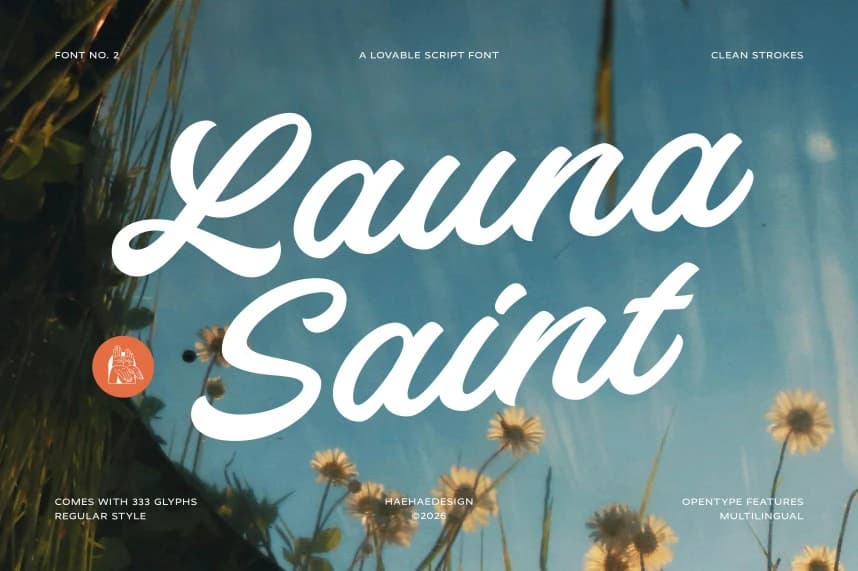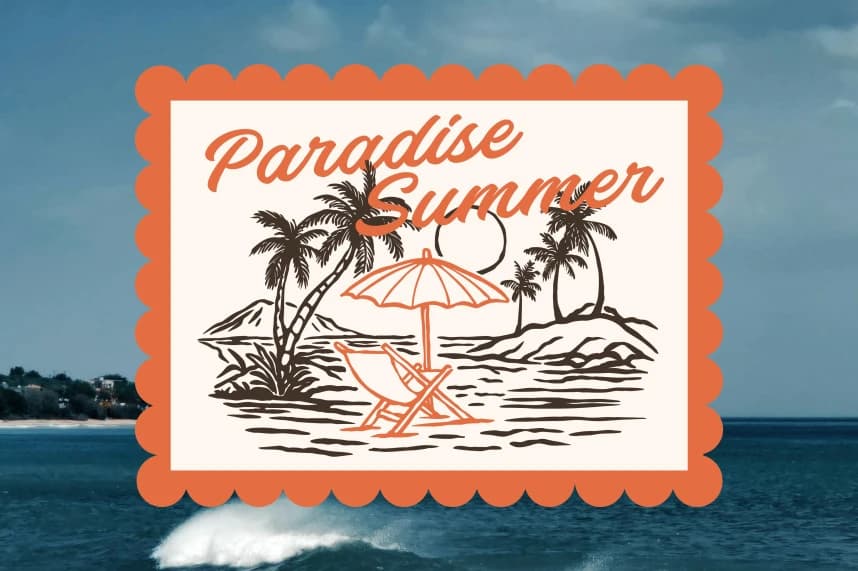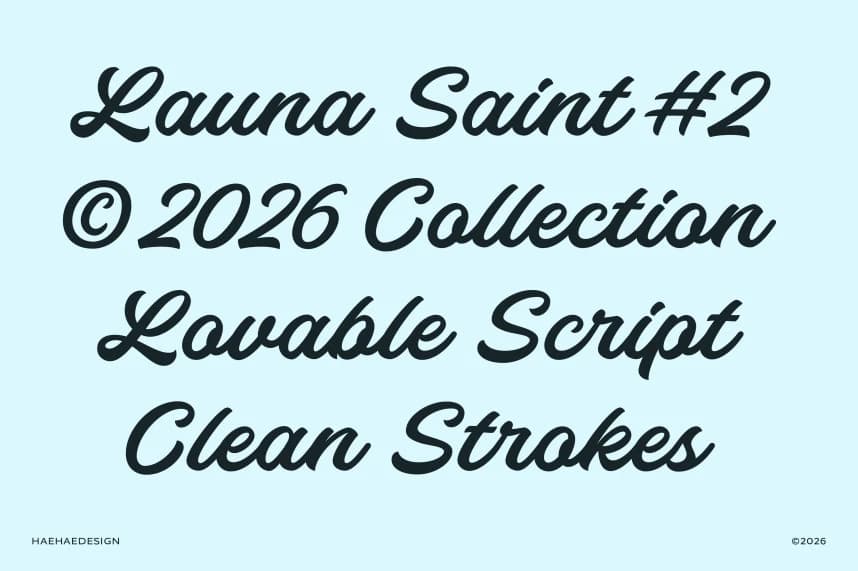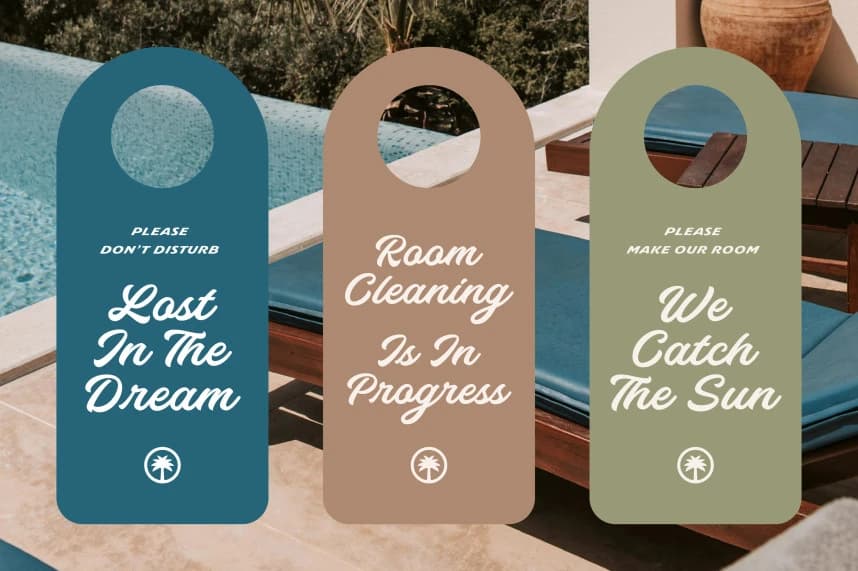
Launa Saint Font
Launa Saint Font is designed to be flexible, a lovable script font that radiates joy and effortless style. This typeface features clean strokes with a smooth, rhythmic flow that perfectly captures the charm of modern brush lettering.